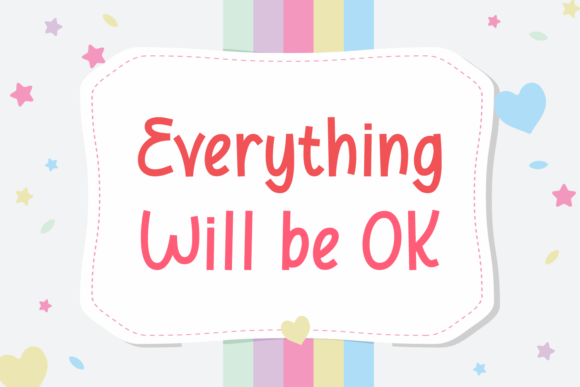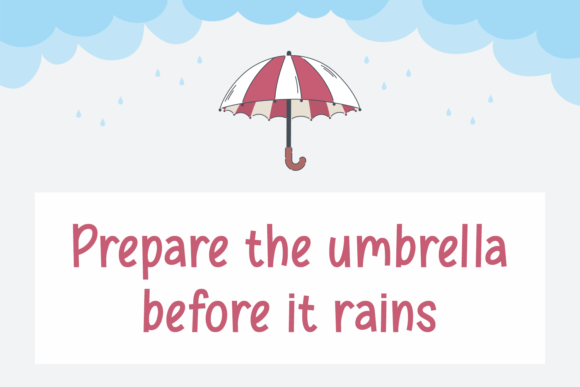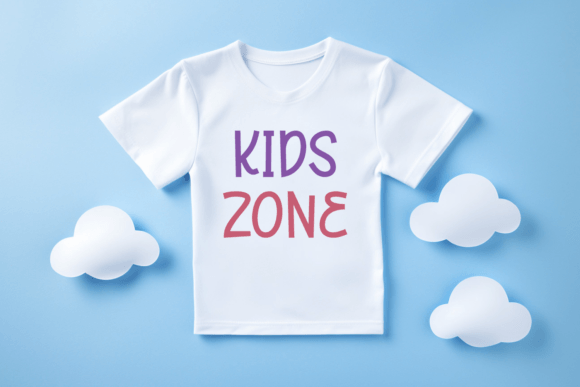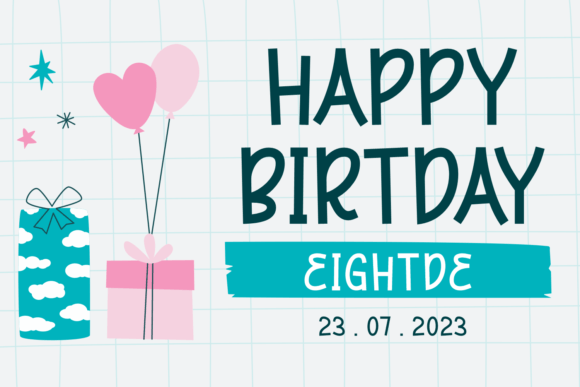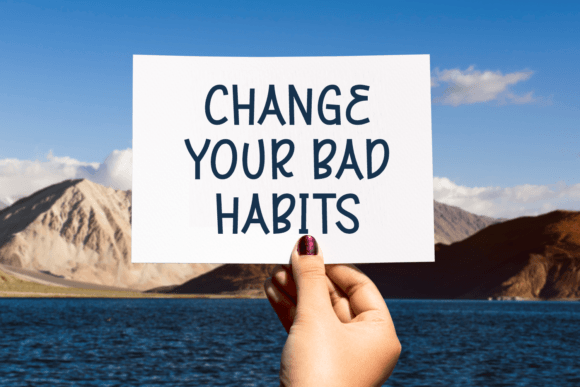
Introduction to Rainbow Friendly Font
Have you ever stared at a blank canvas, waiting for inspiration to strike, only to find yourself doodling rainbows and smiley faces? That’s exactly what happened to me when I first laid eyes on the Rainbow Friendly Font. Its vibrant colors and playful design sparked a wave of creativity, begging me to dive in and explore the endless possibilities.
As a designer, I can attest that finding the perfect font can make or break a project. That’s why I’m excited to share with you the Rainbow Friendly Font, a high-quality design resource that’s sure to bring a smile to your face and a touch of sophistication to your next creative project. Whether you’re working on a free download or a paid design, this font is the perfect addition to any project that needs a little extra oomph.
Key Features of Rainbow Friendly Font
- High-quality design resource for creative projects: The Rainbow Friendly Font is a unique and vibrant font perfect for designers and artists working on colorful and playful projects.
- Transparent background: The font has a transparent background, allowing you to easily combine it with other design elements and backgrounds.
- High-resolution design: The font is designed at a high resolution of 300 DPI, ensuring that it looks crisp and clear in any size or format.
- Perfect for digital and print projects: The Rainbow Friendly Font is suitable for use in both digital and print projects, from social media graphics to posters and flyers.
- Unique and creative design: The font features a unique and creative design that is sure to add a pop of color and personality to any project.
Honest Review: Rainbow Friendly Font
I recently had the chance to try out the Rainbow Friendly Font, and I must say, it’s been a game-changer for my creative projects. ✨ The font is super versatile and can be used for anything from children’s books to branding materials.
What I love most about this font is its high quality design and transparent background. It makes it easy to layer and combine with other design elements, giving me endless possibilities for my creative project.
One thing to note is that the font might not be suitable for all types of projects. ⚠️ For example, it’s not ideal for formal or professional settings, as it can come across as a bit too playful. However, for a children’s book or a fun branding project, it’s perfect.
Overall, I’m really impressed with the Rainbow Friendly Font. It’s a fantastic design resource that’s free to download and offers endless possibilities for creative projects. I highly recommend it to anyone looking for a fun and playful font to add some personality to their designs.
Rainbow Friendly Font
Use the Rainbow Friendly Font in combination with transparent backgrounds to create a striking design. You can also use the font in free download resources to add a personal touch to your creative project. Experiment with different font sizes and styles to get the most out of this high-quality design resource.
The Rainbow Friendly Font is perfect for use in social media graphics, posters, flyers, and other creative projects. You can also use the font in combination with other design elements to create a unique and eye-catching design.